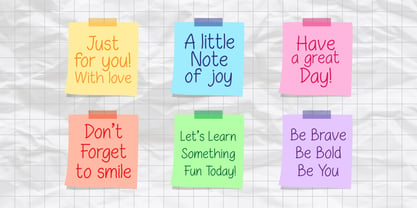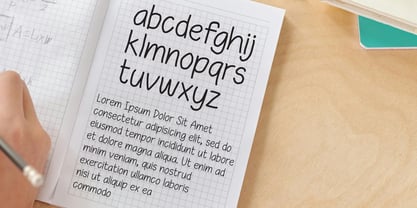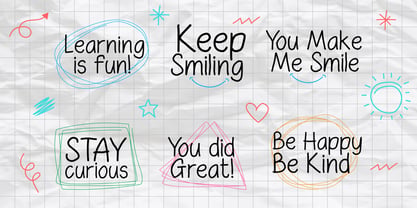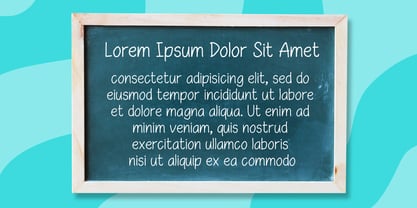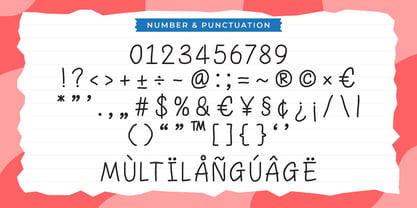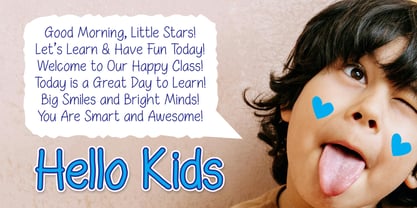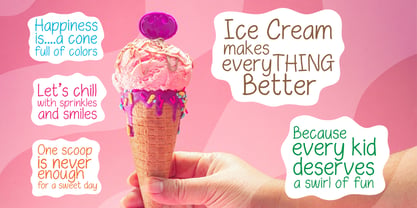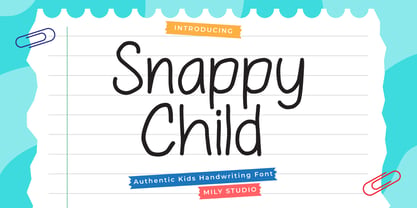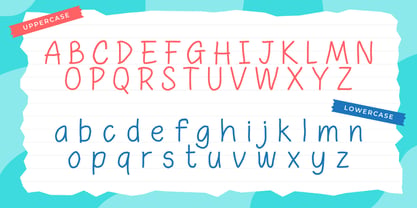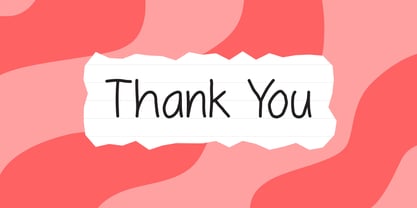
Snappy Child
by Mily Studio
The Snappy Child Font Family was designed by and published by Mily Studio. Snappy Child contains 1 styles. More about this family
Snappy Child is a playful kids handwriting style that captures the charm and innocence of children’s writing. With its fun, bouncy strokes and easy-to-read letters, it’s perfect for children’s books, posters, birthday invitations, educational materials, and any design that needs a joyful touch. Inspired by real kid-like handwriting, Snappy Child brings warmth, imagination, and happiness to every project, making it an ideal choice for designers who want to add a cheerful, youthful vibe to their work.